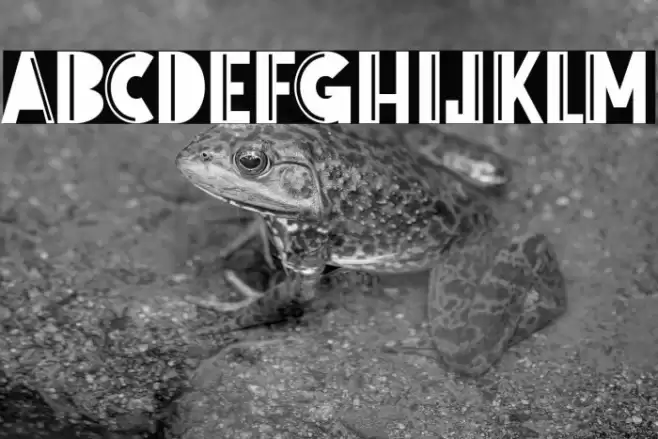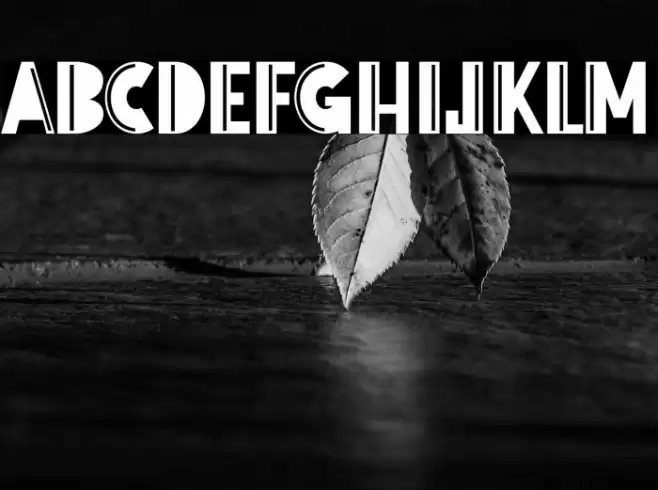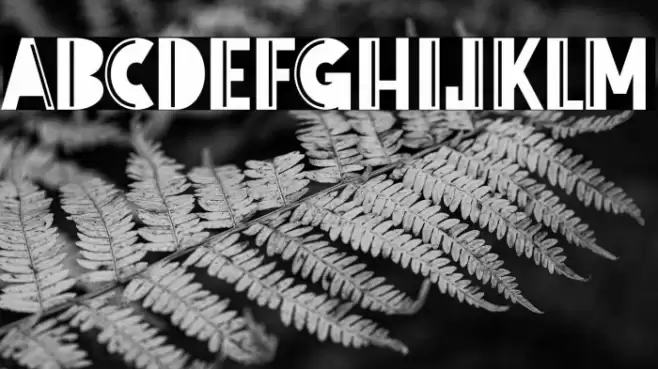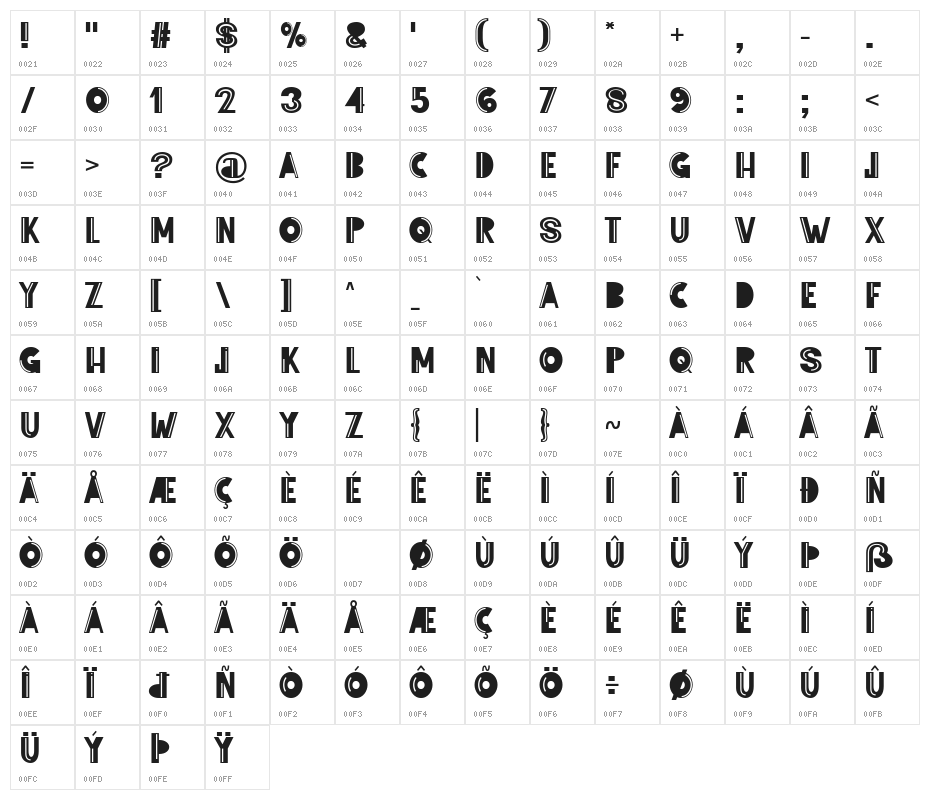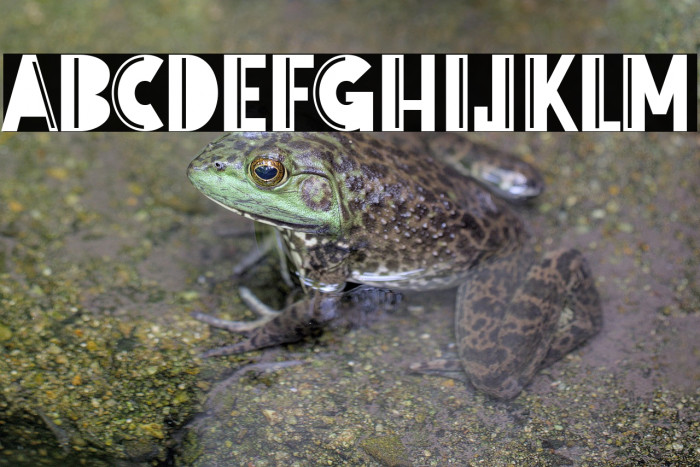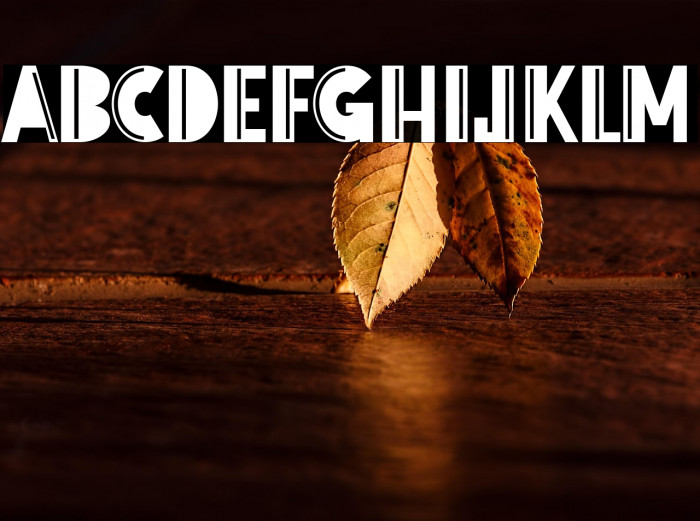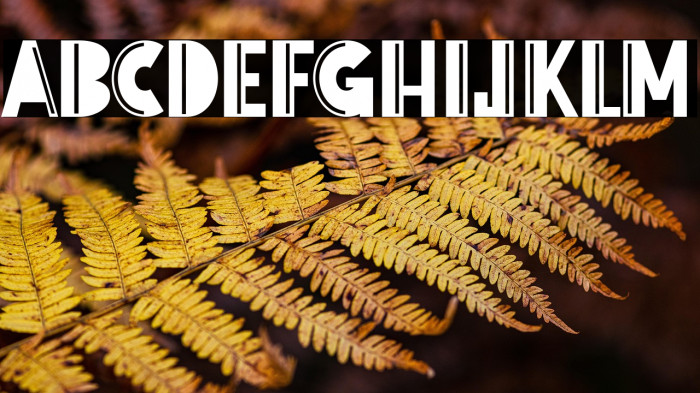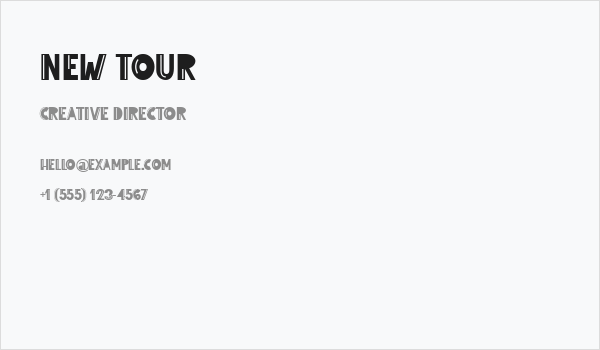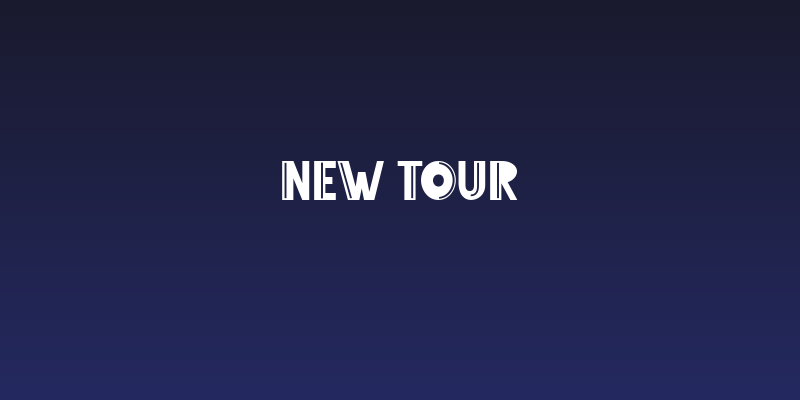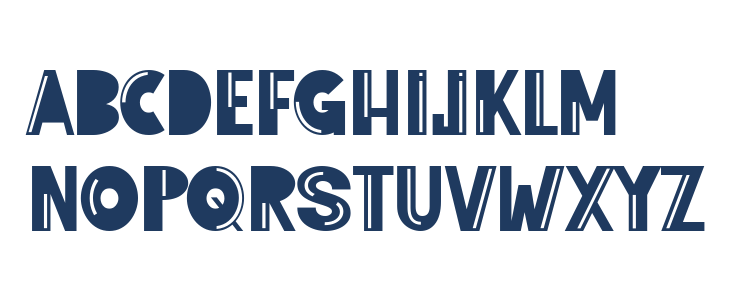
New Tour Font
New Tour Description
This font features a bold and dynamic style with a strong geometric influence. The uppercase letters are characterized by thick, solid strokes combined with unique cutouts and inline details that create a striking visual impact. The numbers and special characters follow the same bold and decorative theme, making them stand out. The font's design is reminiscent of Art Deco with a modern twist, offering a sense of movement and energy. Its high contrast and distinctive shapes make it ideal for attention-grabbing designs.
A bold, geometric font with Art Deco influences and high contrast from Uncategorized fonts.
- Proposed Projects: Ideal for posters, branding, headlines, and any project requiring a bold, eye-catching typeface.
- Overall Style: Modern, Art Deco